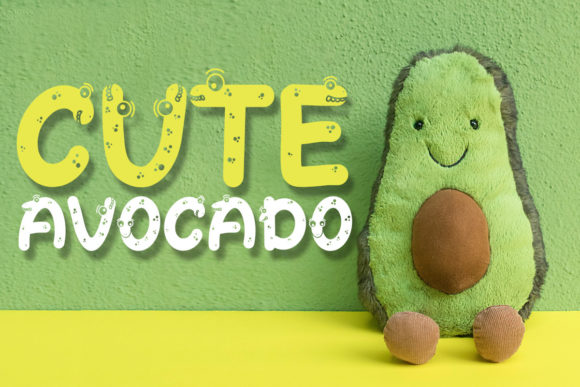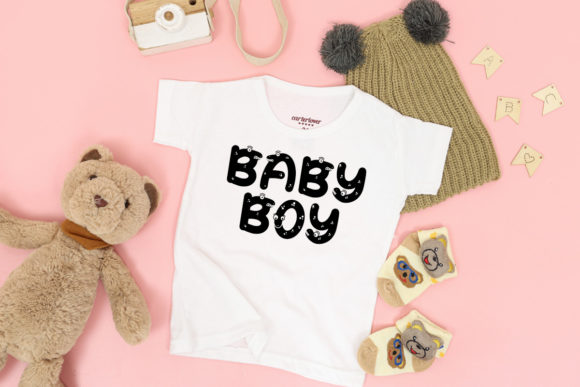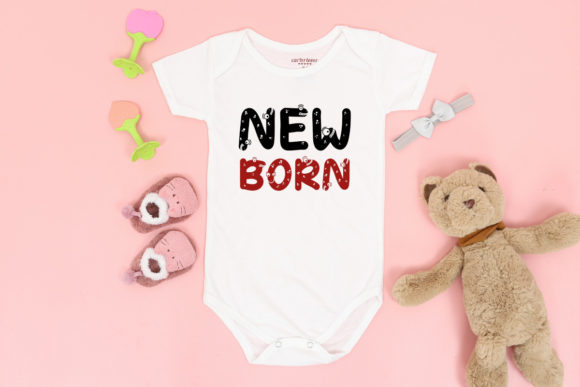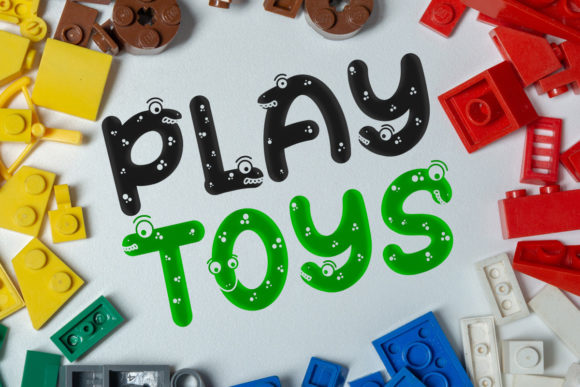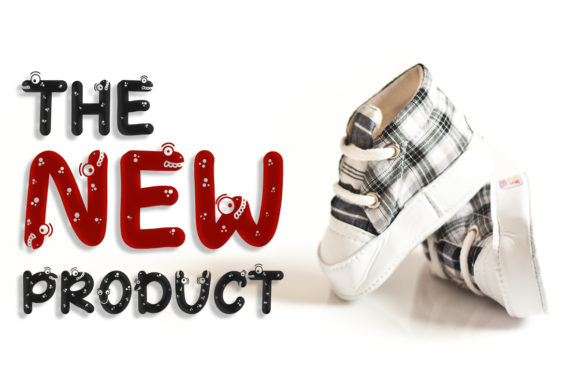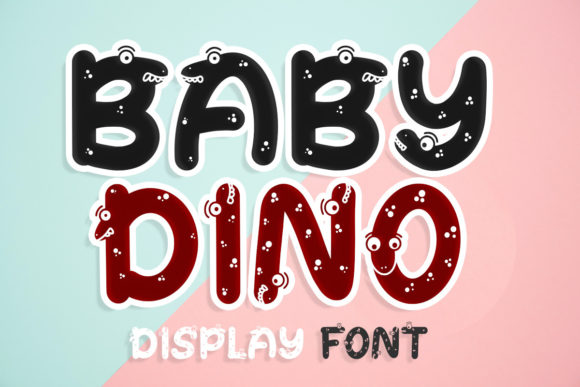
The Perfect Font for Little Creators: Baby Dino Font
Do you remember the joy of creating handmade cards and artwork for your siblings or friends when you were a child? For many of us, those moments sparked a lifelong passion for creativity and self-expression. As a designer, you likely have a similar love for bringing imaginative ideas to life, and that’s where the Baby Dino Font comes in – a delightful display font designed specifically for kids’ projects and designs.
This charming font is not just a novelty, but a valuable tool for designers who want to add a playful touch to their work. Whether you’re creating crafts, digital designs, presentations, or greeting cards, the Baby Dino Font has the potential to become your go-to font for any occasion. Its versatility and whimsical feel make it an excellent choice for designers looking to inject some fun and personality into their projects.
Baby Dino Font Key Features
- Font Family: Baby Dino Font, a playful and cute font designed for children’s content.
- Character Count: Includes a wide range of characters, including uppercase and lowercase letters, numbers, punctuation, and special symbols.
- Unique Characteristics: The font features rounded edges, smooth curves, and a child-friendly design, making it perfect for children’s books, educational materials, and other related content.
Designer Review: Baby Dino Font
Overall, I have mixed feelings about the Baby Dino Font. On one hand, it’s a cute and playful font that could work well for children’s books, nursery decor, or any other project that requires a lighthearted touch. ✨ The rounded edges and soft curves give it a friendly and approachable feel, making it perfect for young audiences.
However, the font has some limitations that make it less versatile than I would like. ⚠️ Here are a few concerns:
- The font is quite basic and lacks any real depth or nuance. It’s essentially a single weight, which can make it difficult to use in situations where a range of font weights would be beneficial.
- The characters are also quite simple and lack any intricate details or flourishes. This can make the font look a bit flat and one-dimensional at times.
- The font’s readability can be a bit of an issue, especially at smaller font sizes. This is because the characters are not always clear or easy to distinguish from one another.
Overall, I would say that the Baby Dino Font is a decent choice for projects that require a playful and childlike feel. However, it’s not a font that I would recommend for more complex or sophisticated projects, as it lacks the depth and nuance that those types of projects require.
Use the Baby Dino Font for playful, whimsical designs, such as children’s books, nursery decor, or party invitations. Experiment with combining the font with other fun, child-friendly elements, like illustrations or graphics.
The Baby Dino Font is perfect for creating engaging, child-oriented content, including:
– Children’s book covers
– Nursery wall art
– Party invitations
– Educational materials
– Branding for kids’ products or services